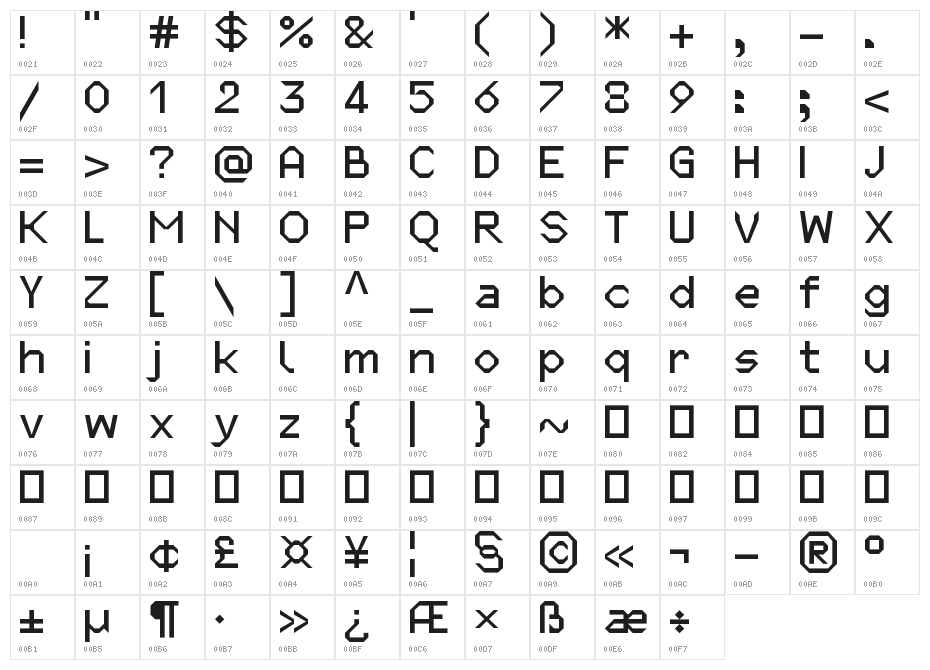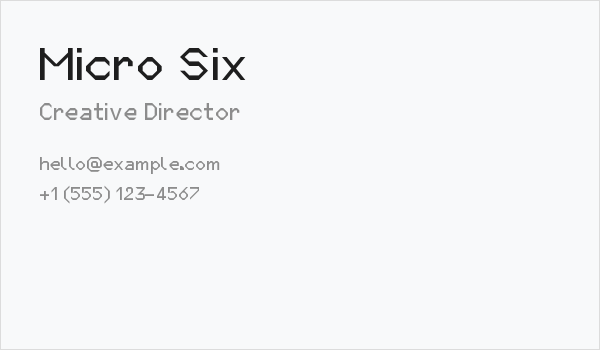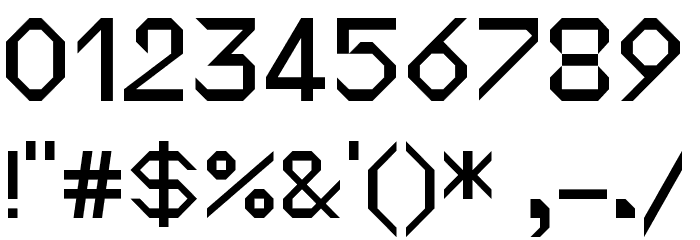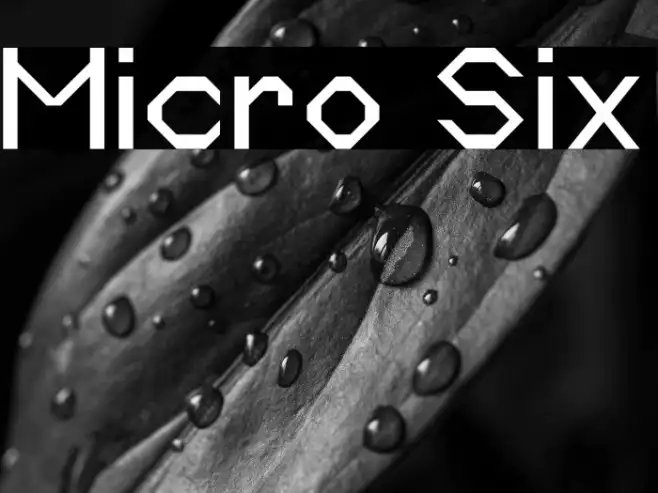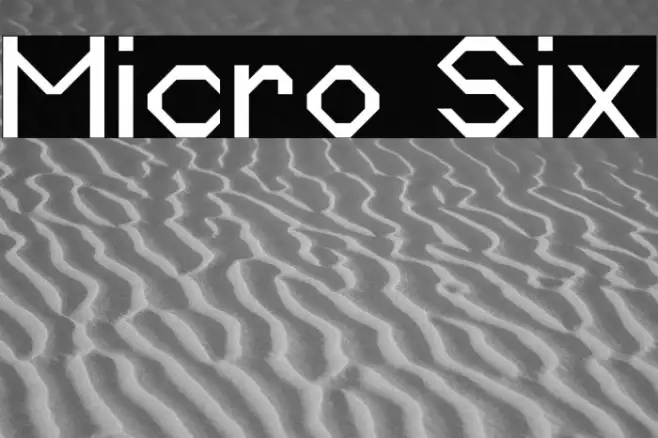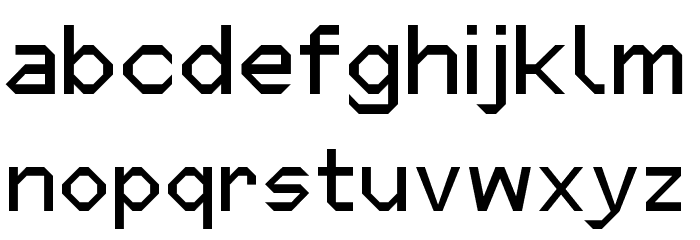
Micro Six Font
Micro Six Description
This font features a geometric and angular design, characterized by its sharp edges and straight lines. The uppercase and lowercase letters maintain a consistent height, giving it a uniform appearance. The numerals are distinct and easily readable, with a futuristic touch. Special characters are designed to match the overall angular theme, making them fit seamlessly with the alphanumeric characters. The font's style is reminiscent of digital or technological themes, making it suitable for modern and innovative design projects.
| Use Case | Logos, Headlines, Digital interfaces |
| Proposed Projects | Ideal for technology branding, digital interfaces, video game design, and futuristic-themed posters. |